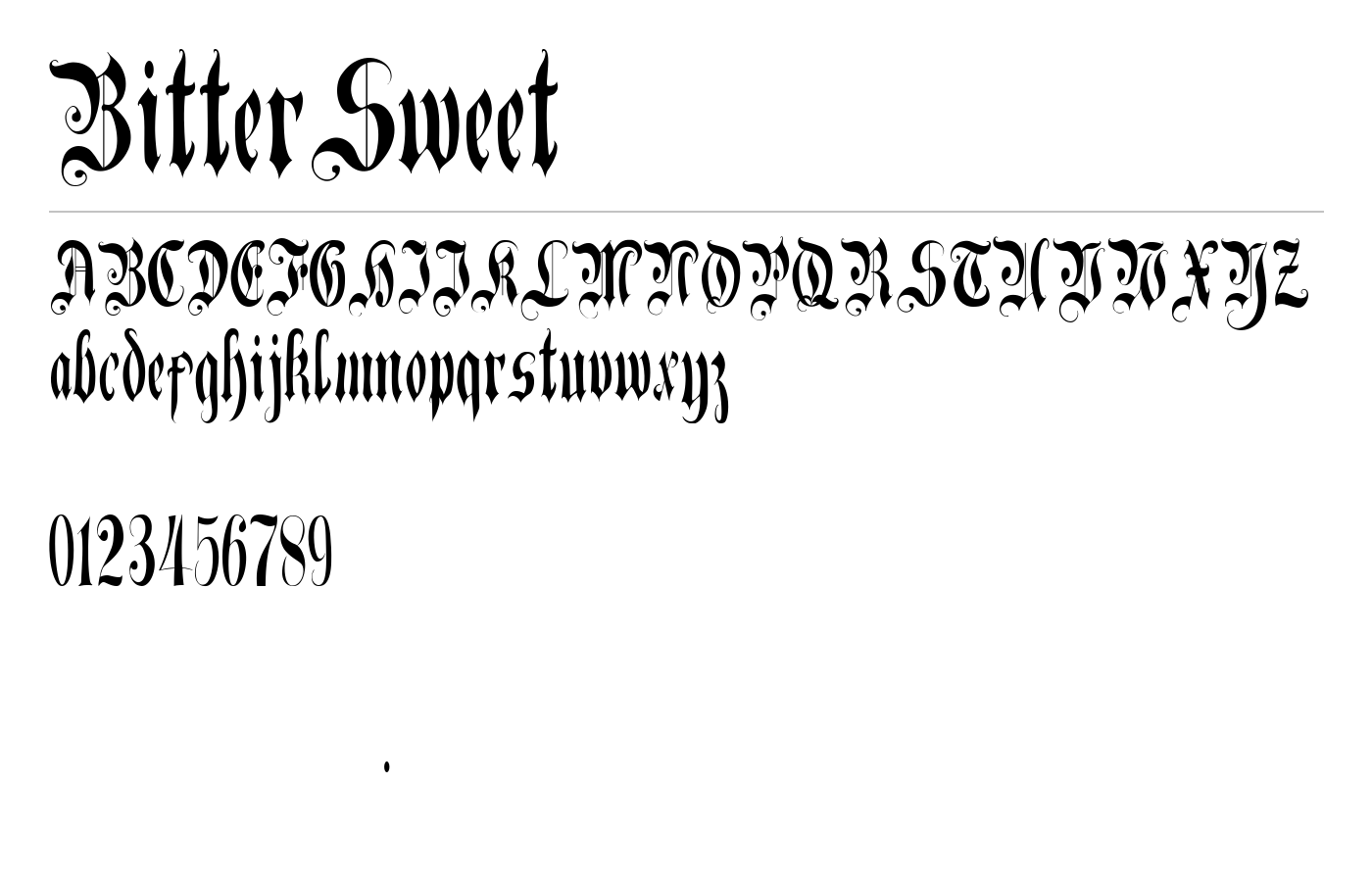
BitterSweet is a dramatic blackletter font with high contrast strokes and ornate, flourished details that give it a vintage gothic flair. Its tall, condensed letterforms and sharp serifs create a bold, decorative presence, making it ideal for headlines, logos, or branding that seeks an elegant yet edgy look. This font works best in designs that want to evoke a sense of tradition mixed with artistic expression.
BitterSweet Font
About BitterSweet Font
| Font family | BitterSweet Font |
| Designer | Fie Clarke - Bonez Designz |